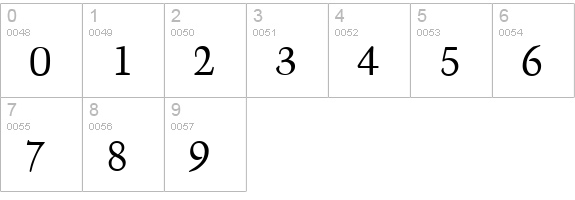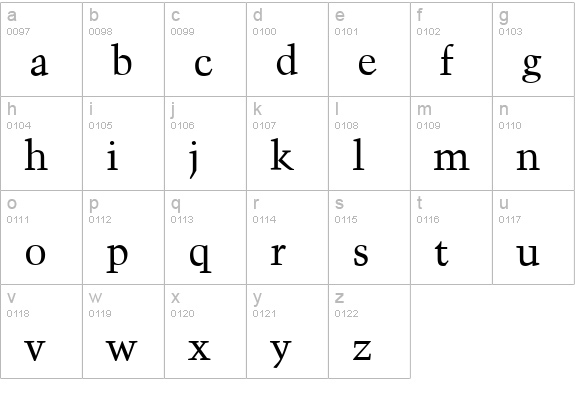
Troubadour-Regular is the standard, neutral variant in the Troubadour typeface family \xE2\x80\x94 well suited to general body text, paragraphs, and standard typographic work.
The Troubadour-Regular font is a versatile and elegant typeface that exudes timeless charm and sophistication. Its classic yet modern design is perfect for a wide range of design projects, from branding to editorial work. With its clean lines and smooth curves, Troubadour-Regular adds a touch of refinement to any text or headline. What's even better is that Troubadour-Regular is available for free download at FontsMarket.com! This means you can easily access this high-quality font without any cost, making it a valuable addition to your font collection. Don't miss out on the opportunity to elevate your design projects with the beautiful Troubadour-Regular font, now just a click away at FontsMarket.com.